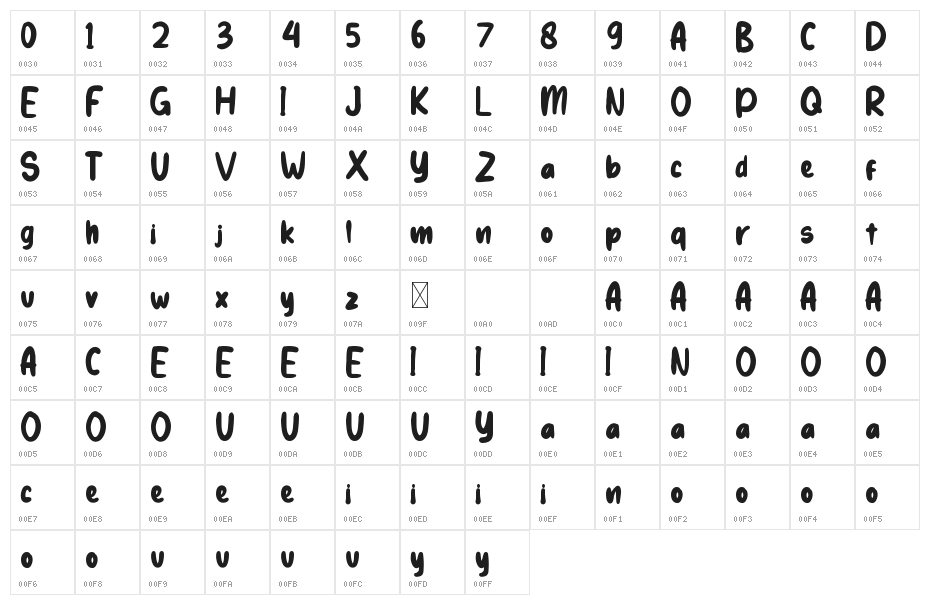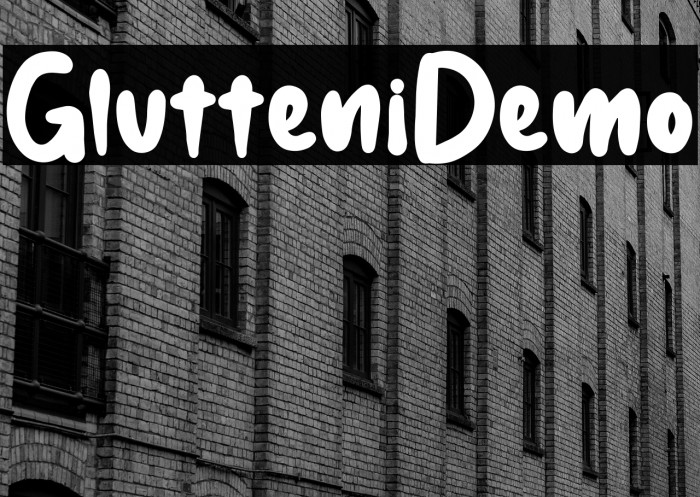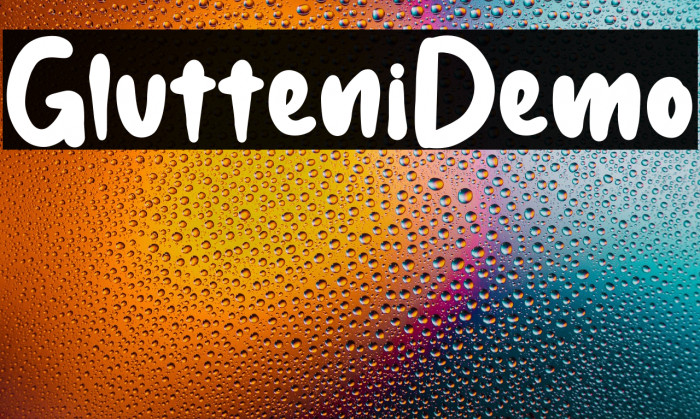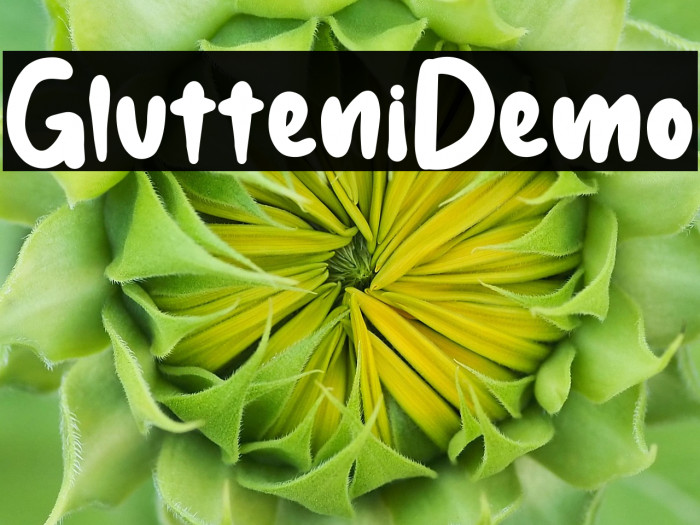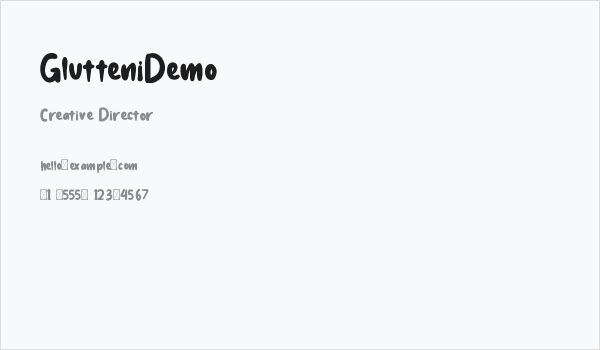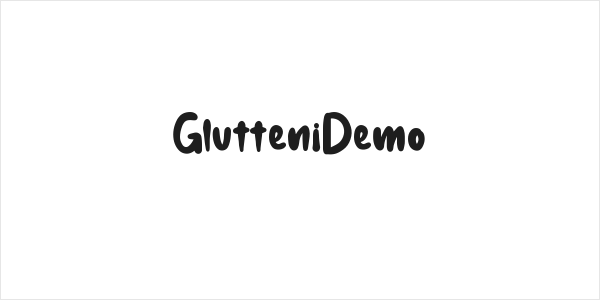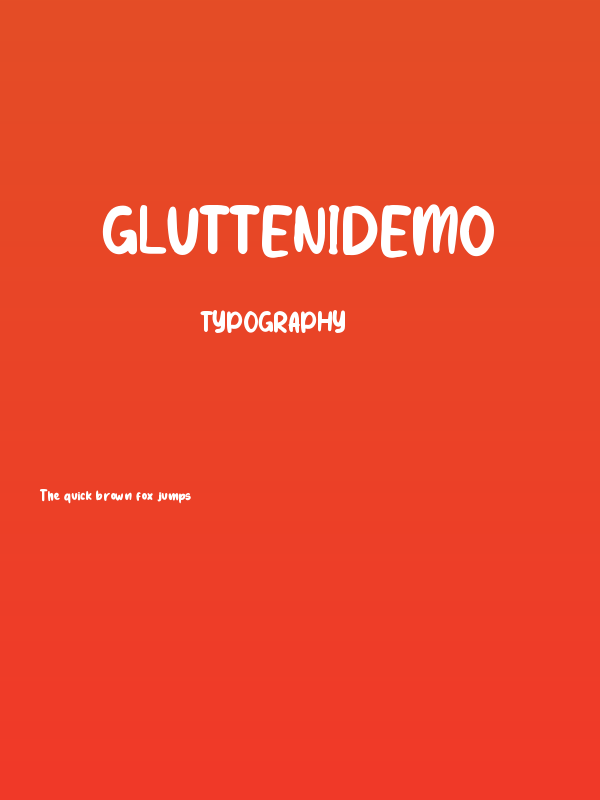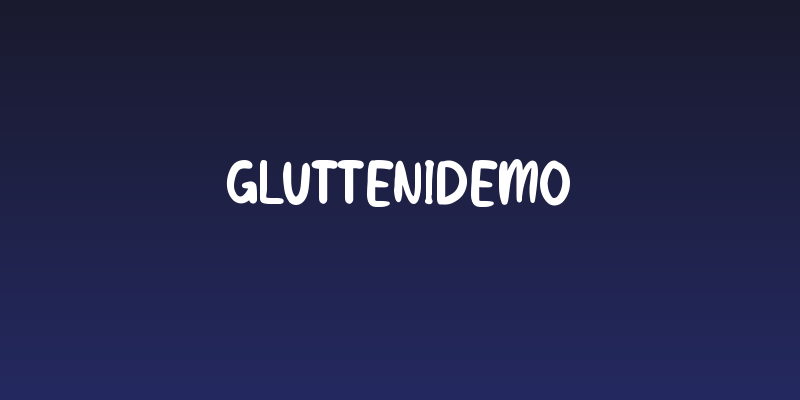
GlutteniDemo Font
GlutteniDemo Description
This playful and bold font features rounded, thick strokes that give it a friendly and approachable appearance. The characters are slightly irregular, adding a whimsical touch that makes it stand out. Its boldness ensures high visibility, making it suitable for eye-catching designs. The font maintains a consistent weight throughout, with smooth curves and a slightly condensed width. The spacing between characters is tight, which contributes to its compact and cohesive look. This style is perfect for projects that require a fun and informal vibe.
| Proposed Projects | Ideal for children's books, playful branding, posters, and greeting cards. |